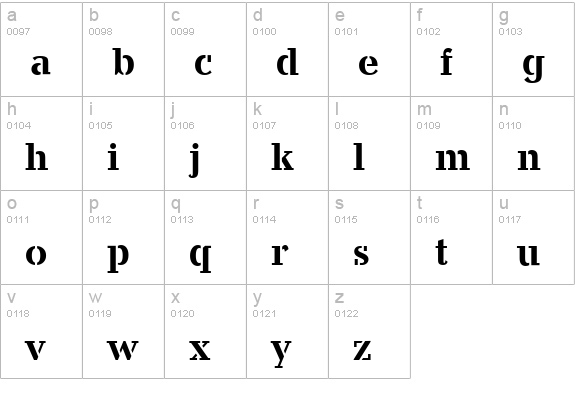
Canyon-Stencil-Medium-Regular Font Details
Canyon-Stencil-Medium-Regular is a balanced, medium-weight variant in the Canyon typeface family \xE2\x80\x94 well suited to sub-headlines, navigation, and balanced editorial work.
Canyon Stencil Medium Regular font is a versatile and stylish typeface that exudes a sense of modernity and sophistication. With its clean lines and distinct stencil design, this font is perfect for adding a unique touch to any project or design. The bold yet elegant appearance of Canyon Stencil Medium Regular font makes it ideal for a wide range of applications, from branding and packaging to posters and signage. What makes Canyon Stencil Medium Regular font even more appealing is that it is available for free download at FontsMarket.com. This means that you can easily access and use this eye-catching font in your creative endeavors without any cost. Whether you're a professional designer or just looking to spice up your personal projects, Canyon Stencil Medium Regular font is a fantastic choice that won't break the bank. Download it today and see the impact it can make on your designs!